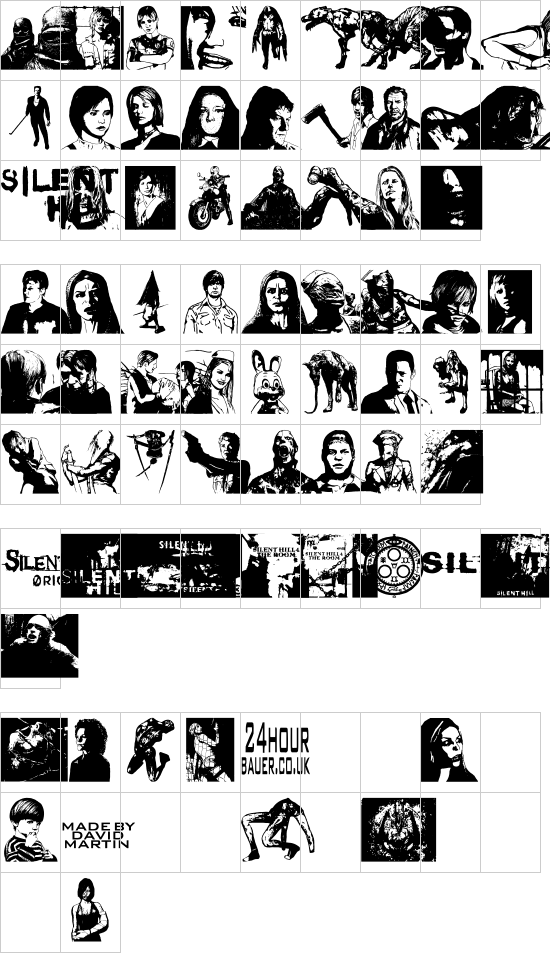
Silent Hill Nightmares is a horror-themed dingbat font built from eerie creature symbols and dark illustrative icons. Each key reveals an unsettling figure or shape drawn in a grim, atmospheric style, giving you a set of nightmare imagery instead of letters.
These graphics fit horror posters, game art, spooky flyers, and themed projects that want unsettling, atmospheric imagery. Silent Hill Nightmares is free to download as a TrueType file, and you can preview your own text on the page to type through the keys and see which dark icon each one produces before placing them in your design.